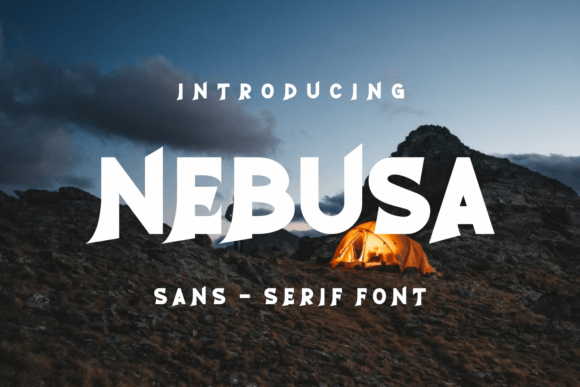
In a world craving clarity and beauty, let us introduce Nebusa - a font that's not just a collection of letters, but an artistic expression of simplicity and grace. Carved from the finest digital stone by the visionary lelevien, Nebusa is a modern sans serif font that dances across the screen with elegance.
Dive into a world where readability meets aesthetics, where every letter is a testament to the power of simplicity. Nebusa's clean lines and open forms create a visual symphony that complements your words, enhancing their impact and clarity. Whether you're weaving tales in the realm of digital publishing, crafting captivating designs, or forging a brand identity that radiates sophistication, Nebusa is your font of choice.
Nebusa's versatility is a true testament to its design brilliance. Bask in its glory as it effortlessly adapts to a myriad of creative endeavors. Its clean aesthetic seamlessly blends into logos, website designs, social media posts, and even the written word, adding a touch of modernity and sophistication to every project. Embrace Nebusa's adaptability and let your creativity soar without limits.
Experience the bliss of clarity as Nebusa's sharp edges and well-defined curves guide your readers through your content with effortless ease. Its high legibility ensures that every message is conveyed with crystal clarity, while its generous letter spacing creates a visual flow that invites readers to immerse themselves in your storytelling.
Nebusa isn't just a font; it's an extension of your creative vision. Its beauty lies not only in its form but also in its ability to amplify your message and elevate your designs. It's the perfect font for those who seek a harmonious balance between aesthetics and functionality.
Join the creative revolution and embrace the allure of Nebusa. Let its clean lines and modern aesthetics ignite your imagination and transform your designs into masterpieces of visual elegance. Unleash the power of simplicity and clarity with Nebusa - the font that redefines the art of digital expression.